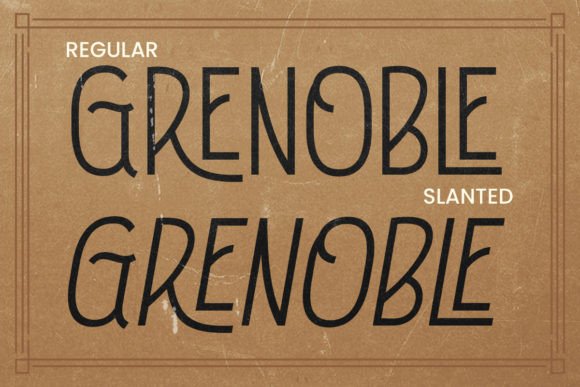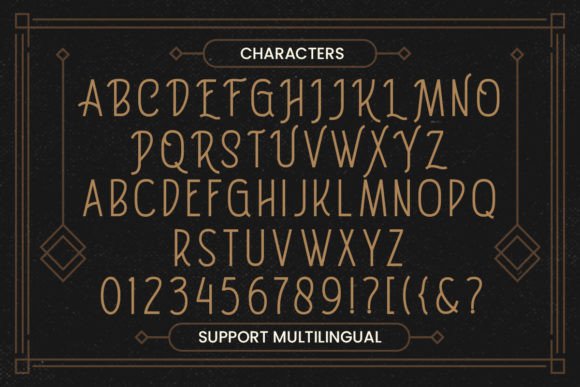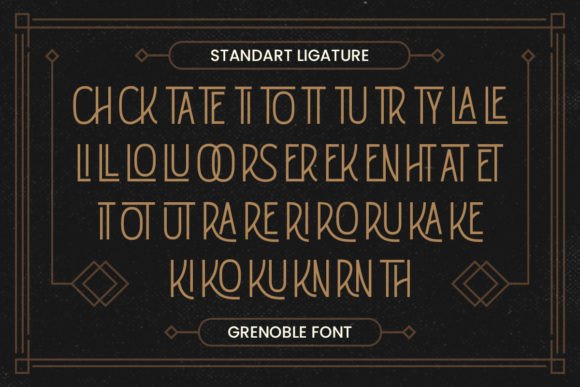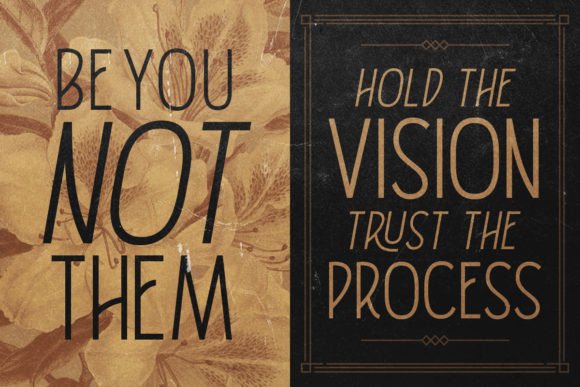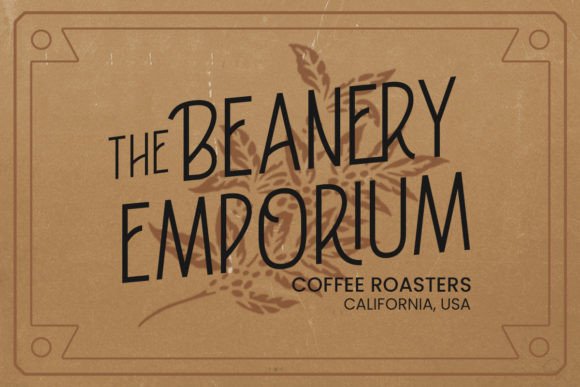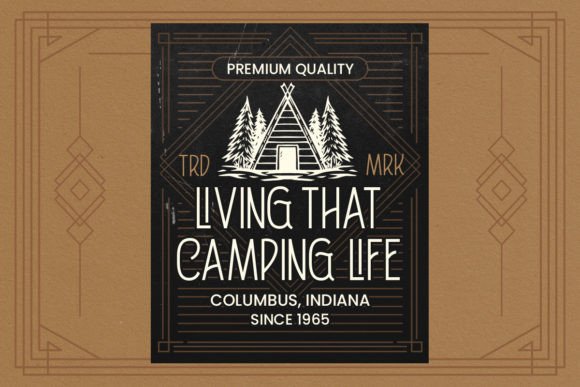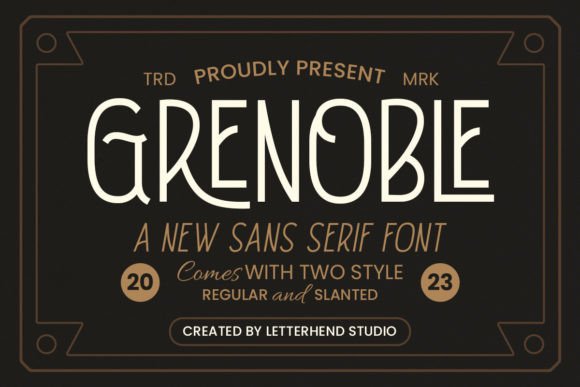
Discover the Elegance of Grenoble Font: A Perfect Blend of Modern Design and Vintage Feels
In the world of typography, fonts play a crucial role in conveying messages, expressing emotions, and creating brand identities. Among the numerous fonts available, Grenoble Font stands out for its unique blend of modern design and vintage elegance. This sans-serif font has been gaining popularity among designers and crafters for its simplicity, sophistication, and versatility.
What is Grenoble Font?
Grenoble Font is a sans-serif typeface that combines the best of modern design with the elegance of vintage feels. Its monoline strokes and clean lines give it a simple yet sophisticated look, making it perfect for various design applications. The font’s sleek and minimalist design ensures that it remains legible even at small sizes, making it an excellent choice for body text and headings.
Key Features of Grenoble Font
- Monoline Strokes: Grenoble Font features monoline strokes that give it a clean and minimalist look. This design element ensures that the font remains simple and uncluttered, making it perfect for modern designs.
- Clean Lines: The font’s clean lines add to its elegance and sophistication. The lines are carefully crafted to create a sense of harmony and balance, making the font suitable for formal and informal designs.
- Sans-Serif: As a sans-serif font, Grenoble Font does not have serifs, which gives it a modern and sleek look. This design element makes the font perfect for digital applications, such as websites, mobile apps, and social media graphics.
- Versatility: Grenoble Font is a versatile font that can be used in various design applications, including logos, headings, body text, and more.
Use Cases for Grenoble Font
Grenoble Font is a versatile font that can be used in various design applications. Here are some of the most popular use cases:
- Logos: Grenoble Font is perfect for creating logos that require a modern and sophisticated look. Its clean lines and monoline strokes make it an excellent choice for logotypes, wordmarks, and letterforms.
- Headings: The font’s elegant design makes it suitable for headings, titles, and subtitles. Its legibility and readability ensure that your headings stand out and grab attention.
- Body Text: Grenoble Font is also suitable for body text, especially in digital applications. Its clean design and monoline strokes make it easy to read, even at small sizes.
- Formal Forms: The font’s sophistication and elegance make it perfect for formal forms, such as resumes, invoices, and certificates.
Why Choose Grenoble Font?
Grenoble Font offers several benefits that make it an excellent choice for designers and crafters. Here are some of the reasons why you should choose Grenoble Font:
- Unique Design: Grenoble Font has a unique design that sets it apart from other fonts. Its blend of modern design and vintage elegance makes it a standout font.
- Versatility: The font’s versatility ensures that it can be used in various design applications, from logos to body text.
- Legibility: Grenoble Font is highly legible, even at small sizes. This makes it perfect for digital applications, where readability is crucial.
- Elegance: The font’s elegant design makes it suitable for formal and informal designs, from luxury brands to personal projects.
Grenoble Font is a versatile and elegant sans-serif font that combines the best of modern design with the elegance of vintage feels. Its monoline strokes, clean lines, and sophisticated design make it perfect for various design applications, from logos to body text. Whether you’re a designer or crafter, Grenoble Font is an excellent choice for your next project. With its unique design, versatility, legibility, and elegance, Grenoble Font is sure to elevate your designs and take them to the next level.